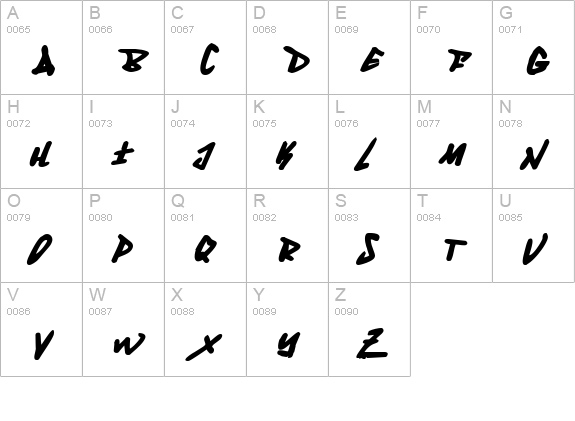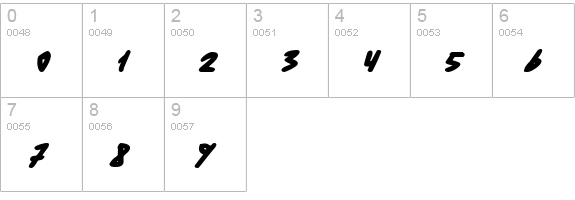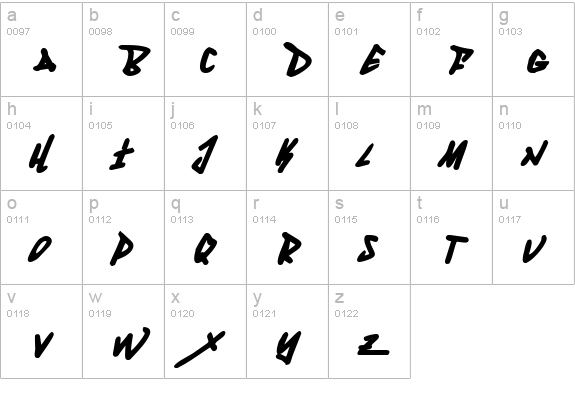
Fantom Bold Italic is a strong, high-contrast, italic variant in the Fantom typeface family \xE2\x80\x94 well suited to headlines, attention-grabbing titles, and strong calls-to-action.
Introducing Fantom Bold Italic - a striking and modern font that exudes confidence and creativity. The bold yet elegant strokes of this typeface make it perfect for making a statement in any design project. The italicized slant adds a touch of sophistication and flair, making it versatile for a wide range of applications. This font is not only visually appealing but also incredibly easy to read, making it suitable for both headlines and body text. With its unique character and strong presence, Fantom Bold Italic is sure to leave a lasting impression on any audience. Best of all, Fantom Bold Italic is available for free download at FontsMarket.com. Don't miss out on the opportunity to add this stunning font to your collection and elevate your design projects to the next level.